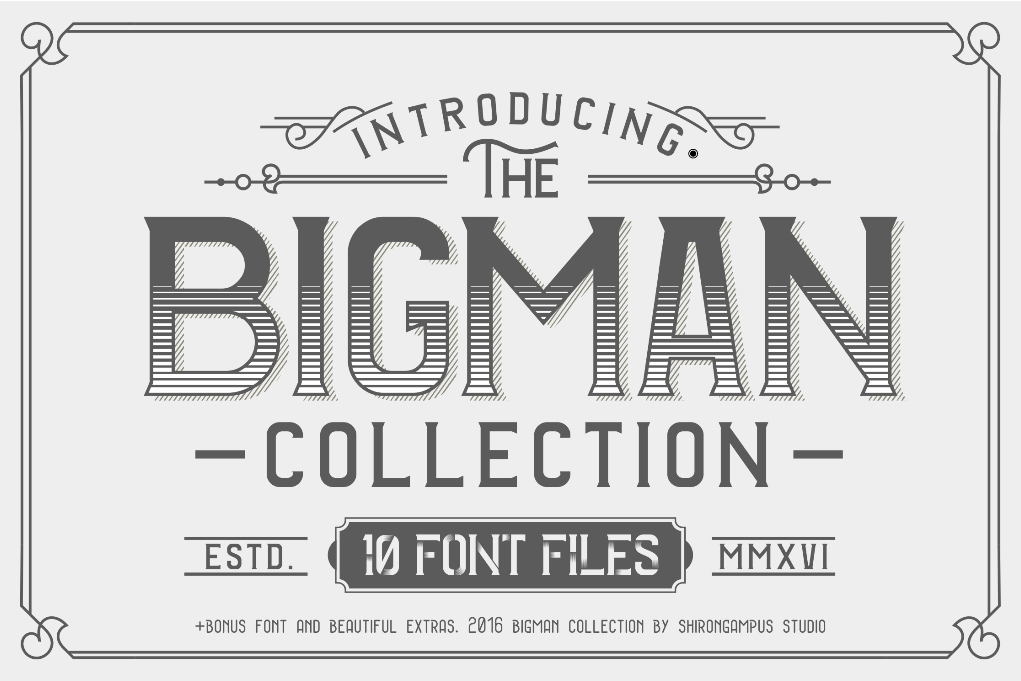
The BIGMAN Font Collection
The BIGMAN Font Collection The Bigman Font Collection is font family that makes you have fun to create a awesome type combination. The Bigman Font is Suitable for digital lettering, branding, t-shirt, print, dark business cards, logo, poster, t-shirt, and for any graphic design. WHATS INCLUDED Bigman Regular otf Bigman Aged otf Bigman Rough Aged otf Bigman Gradient Fill otf Bigman Outline otf Bigman Hatch otf Bigman Extrude otf Bigman Cut otf EXTRAS Bigman Vector Extras Eps & PDF BONUS FONT Bigman Thin otf Bigman Stylish otf